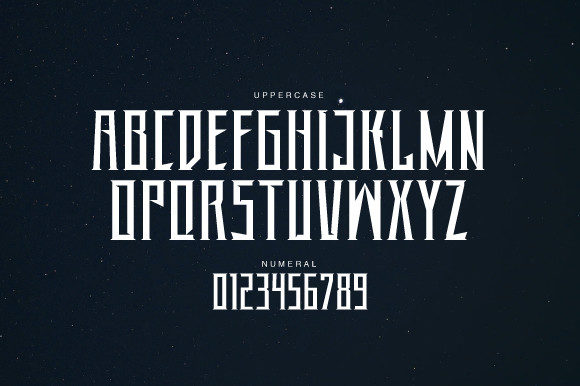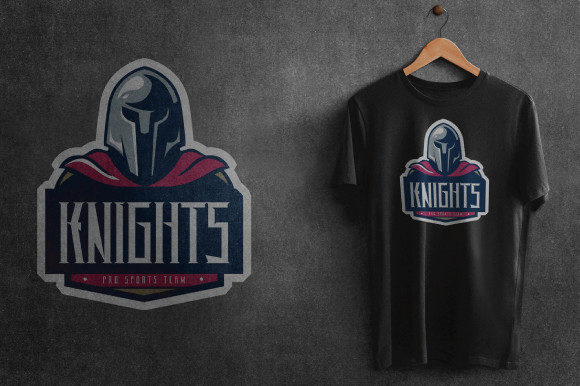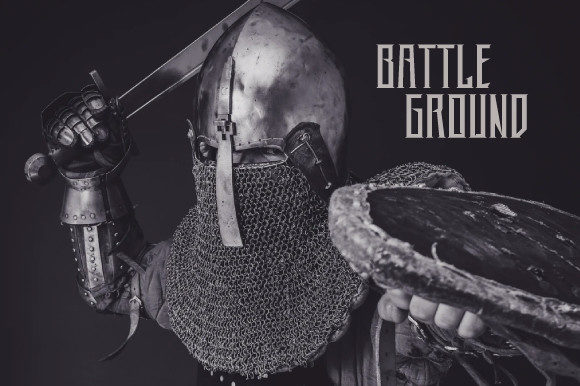
Introduction to Mibkle Font
Remember that moment when you’re working on a creative project, and you just can’t seem to find the right font to match your vision? The frustration builds up, and you’re about to give up when suddenly, you stumble upon the perfect design resource – the Mibkle Font.
This thick lettered and assertive serif font is more than just a pretty face; it’s a game-changer for designers. Whether you’re working on a bold poster or a sleek business card, the Mibkle Font has the potential to elevate your creation to the next level.
With its high quality and versatility, the Mibkle Font is an incredible asset to any designer’s library. And the best part? It’s available for free download, making it a transparent background of creative possibilities for designers of all levels.
Key Features of Mibkle Font
- High-quality, professional font suitable for creative projects, such as graphic design, web design, and digital art.
- Unique, stylish design that adds a touch of elegance to any creative project, from logos and branding to typography and layout.
Honest Review: Mibkle Font
I recently had the chance to work with the Mibkle Font, and I must say it’s been a game-changer for my creative projects. One of the standout features is its ability to work seamlessly with a transparent background, which is a must-have for any designer.
- ✨ High-quality design: The Mibkle Font is incredibly detailed and visually appealing, making it perfect for any high-end project.
- ✨ Versatile design resource: The Mibkle Font can be used for a wide range of creative projects, from logos to typography-heavy designs.
However, there are a few limitations to keep in mind. For example, ⚠️ the font may not be suitable for very small text sizes, and ⚠️ it can be a bit challenging to customize.
Overall, I’m really impressed with the Mibkle Font. It’s a high-quality design resource that’s perfect for any creative project. With its transparent background and free download, it’s definitely worth checking out.
The Mibkle Font is a versatile design resource that can be used in a variety of creative projects, including logos, graphics, and presentations. Its high quality and transparent background make it perfect for use on both light and dark backgrounds.